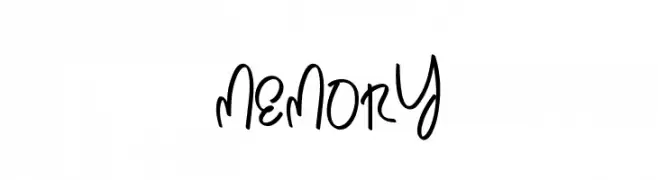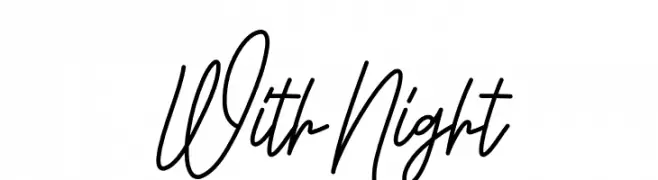
( Fonts by Belina Studio )
A playful, casual handwritten font with fluid, slightly irregular strokes.
( Fonts by Maulana Creative )
A flowing, elegant handwritten font with smooth, continuous strokes.
( Fonts by Lemonthe )
A playful, handwritten font with smooth curves and a casual style.
( Fonts by Ianmikraz )
A playful, bold handwritten font with a casual and friendly style.
( Fonts by Scratchones )
A playful, handwritten font with flowing, interconnected letterforms.
( Fonts by Balpirick Studio )
A playful, handwritten font with smooth, rounded edges and a friendly appearance.
( Fonts by Scratchones )
A fluid and elegant script font with dynamic cursive letterforms.